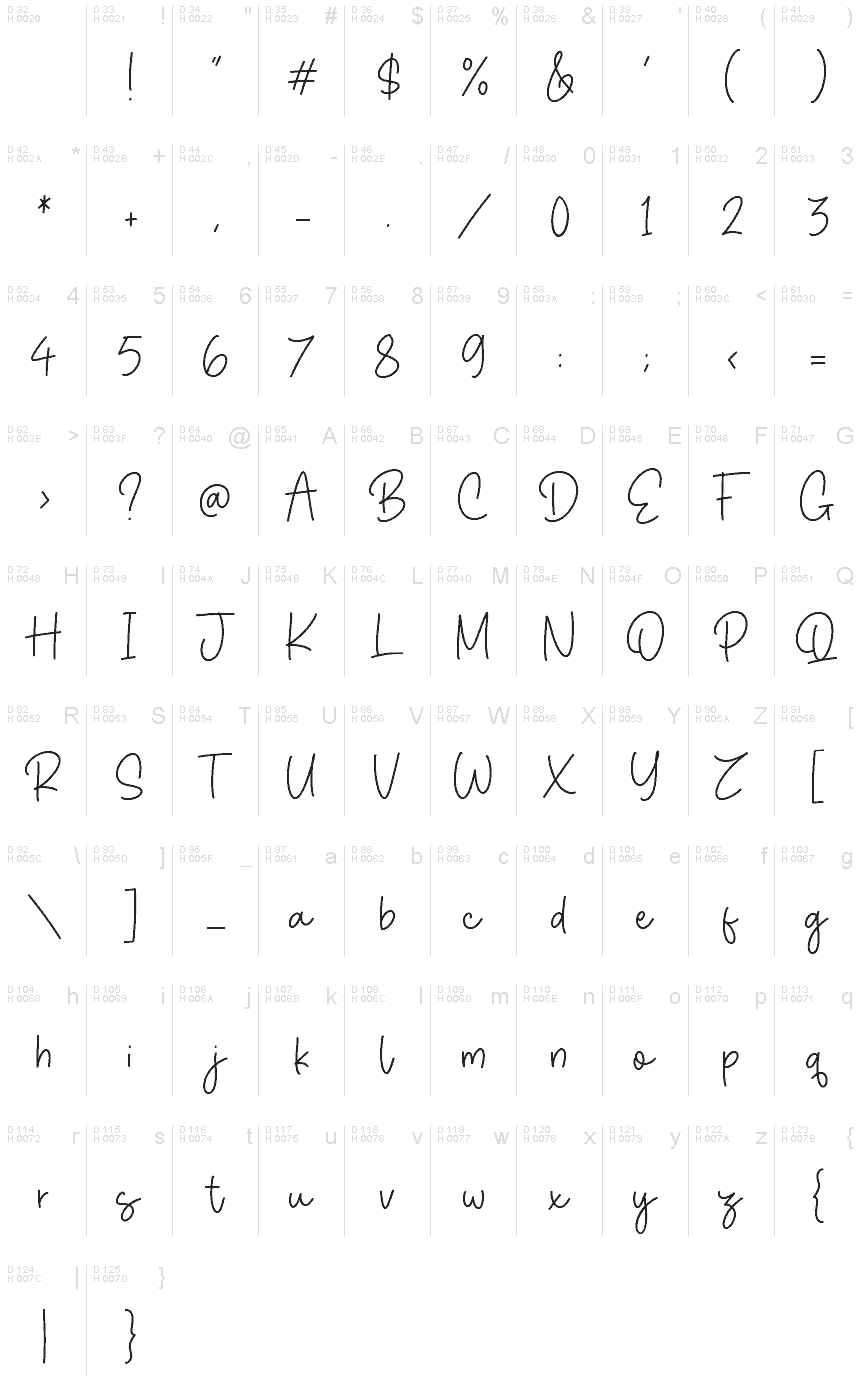
Sweet Candies
Sweet Candies font by Timur Type is a friendly, approachable, handwritten typeface with an organic flow to it. Its modern style and clean lines elevate this casual font above other handwritten styles. The lowercase letters hold the same height within a light font weight that gives a soft feel to all written texts.
Use Sweet Candies free handwritten font in a wide variety of applications and designs. Typography enthusiasts can use it in movie subtitles, body text for books or magazines, logos and branding projects, posters tagline, labels information on food packaging designs as well as fashion items packages.